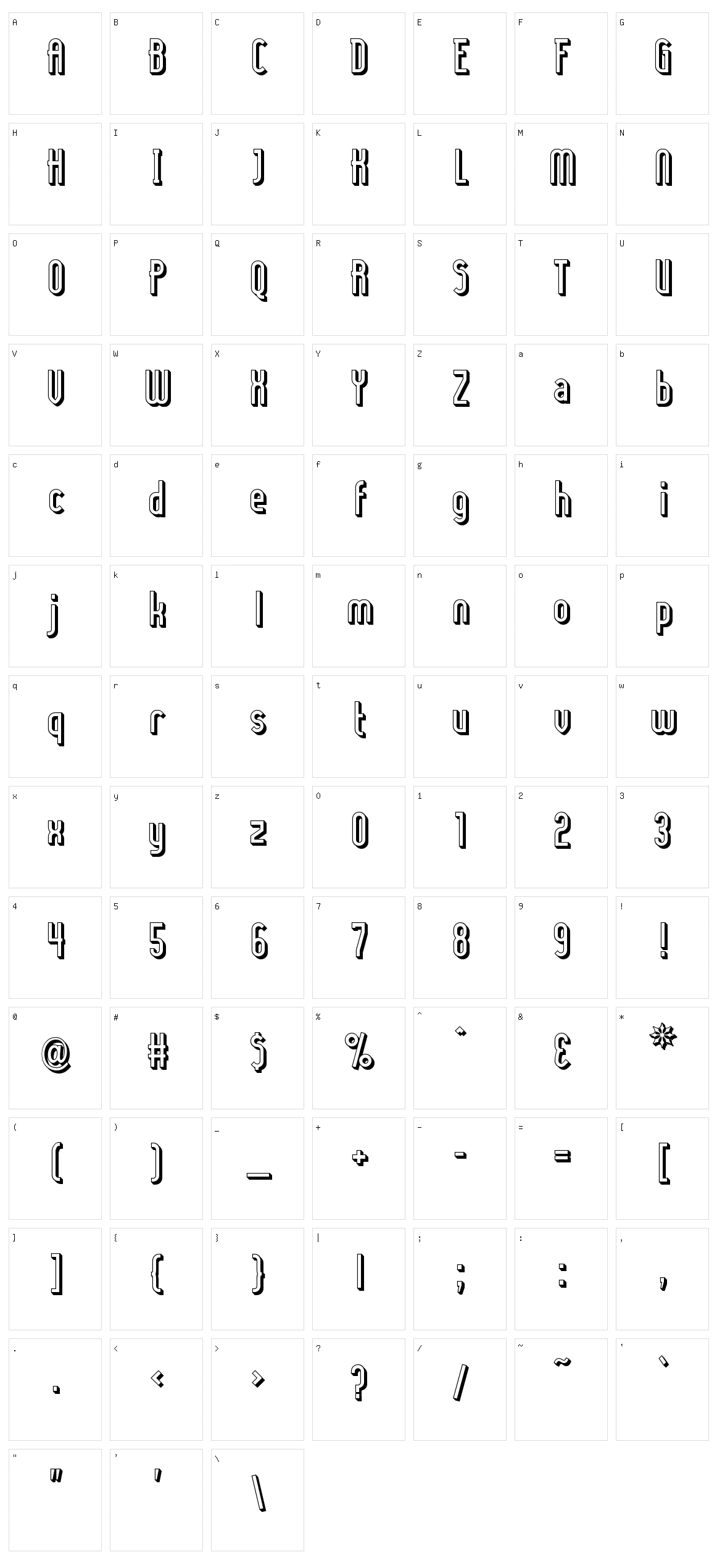
Ice comes into your soul, and you fall in love with her while you're on the verge of a breakthrough. When the house falls down a few months later, you're nothing like the matador you thought you were, you're nowhere near the breakthrough, and nothing is left but the pain; you weep and your tears make funky shapes on the carpet. You insist on the love but time knows you better than you know yourself. Absent-mindedly you remove the photos to make space for art. Once in a while you dream of her and it's all back for the duration of the reel. Sometimes you think of her in the middle of the day for no particular reason, and you wish that all the stuff they say about universal minds were true. So heartbroken and longing madly, you drive aimlessly at a small morning hour. The dark is soothing. The blues is real and timeless. The steering wheel and the windshield occupy the part of your mind which would otherwise be busy thinking up more reasons to manufacture hot drops of salty water to gloss over the pain.
The best slice of education one can acquire from loving the ice then falling through it is the precious knowledge that everything is better understood from very far away, when it's nothing but a memory. The day you sat on the toilet and watched her to your left as she put on her make-up is the perfect example. Another good one is he day you sat at the desk and traced the lazy curtains that blew over her sleeping body in the bed so near... and the time you had to say goodbye for the first time, the time you saw the baby-name book on her shelves, the time you stuck half your body out the window and screamed at the busy grid half a mile below, the time she thanked you for every moment of glory you made her feel, and all the times you smoked on the swing. And oh can you feel the ice touching the shallowest surface of your chest now?